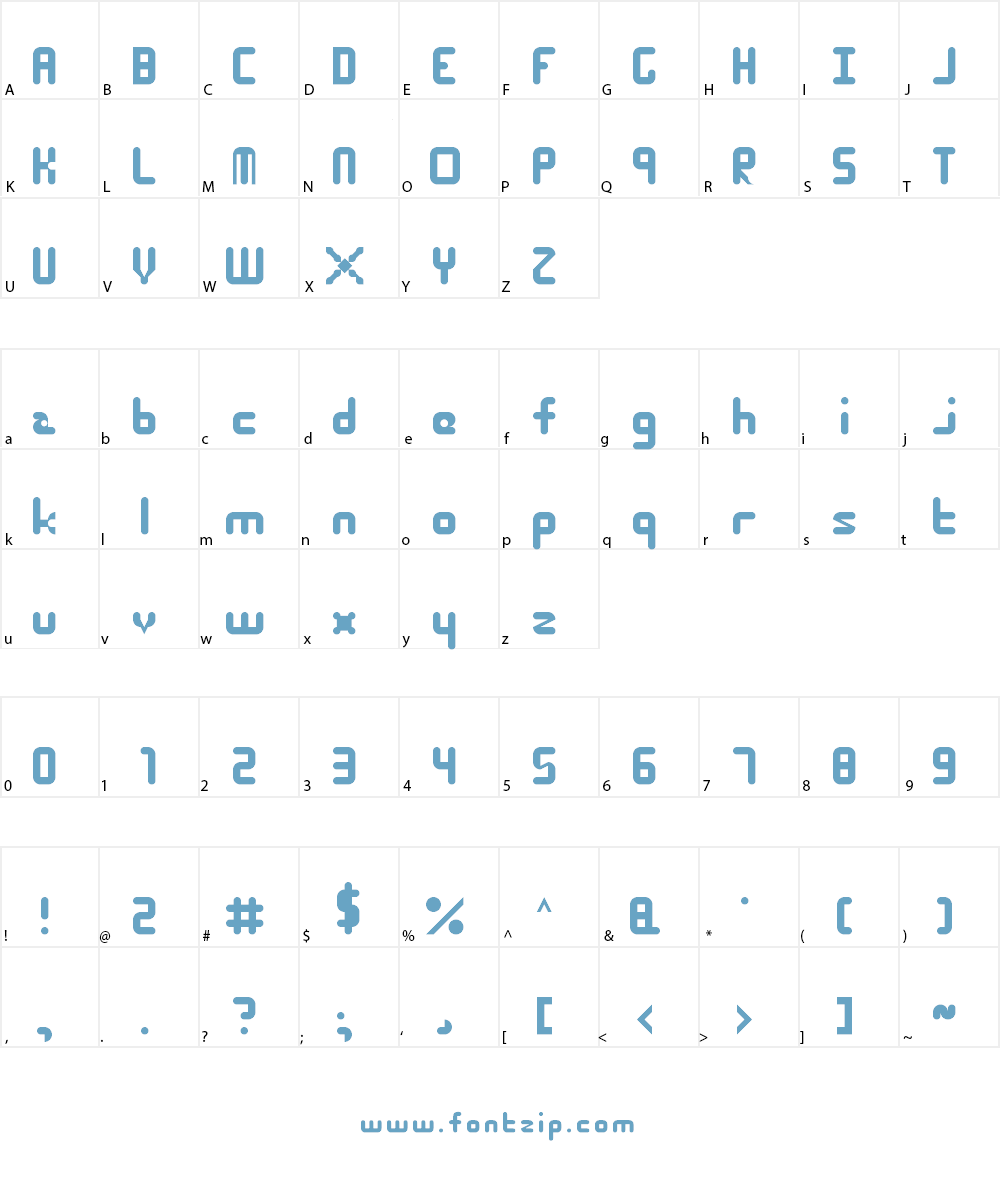
A font with round edges.
UPDATE 11-09-2014:
Added Cyrillic support (only Slavic letters), soft hyphen, more Latin letters (currently incomplete pack but more will be added soon), and long S with high and diagonal strokes, small delta (not the Greek letter).